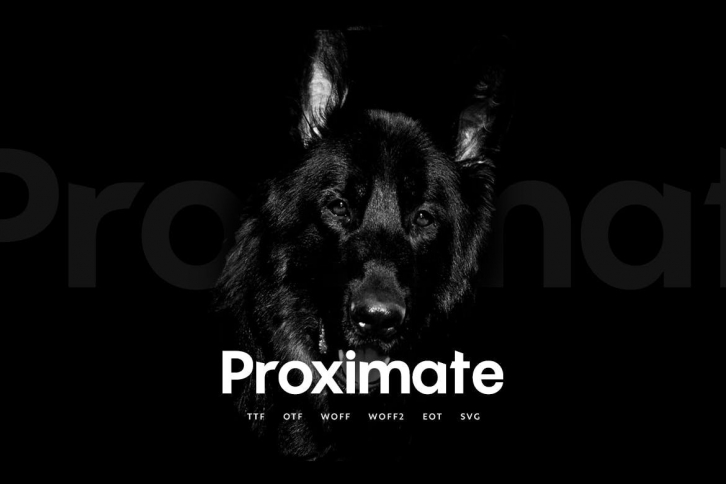
Proximate Display Typeface
Proximate Display is a modern Sans Serif typeface very much suitable for Film Posters, headlines, Block letter, Subheading, Logo Designs, Big Banners. Creative & Decorative Typography Web Designs.
Proximate Display is perfectly suited for eye-catching headlines. Its clean appearance and mid-weight make it a wonderful candidate for being paired with more decorative, elaborate subheading fonts.